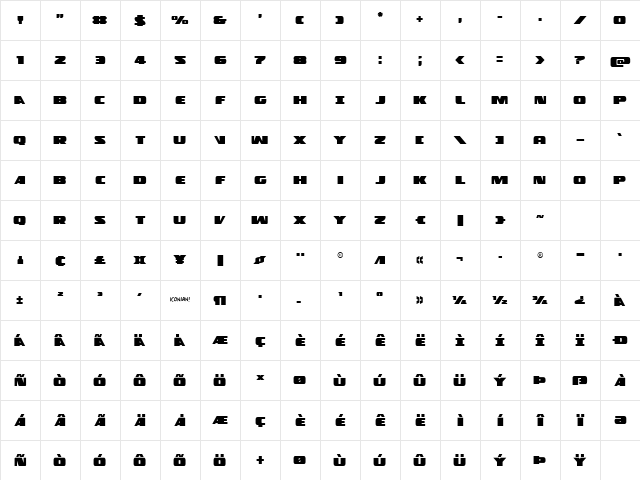
Complete Police Cruiser Regular glyph index. Displaying only characters natively supported by Police Cruiser Regular font.
Police Cruiser is a composed and adaptable typeface that performs quietly and consistently across a wide range of design contexts.